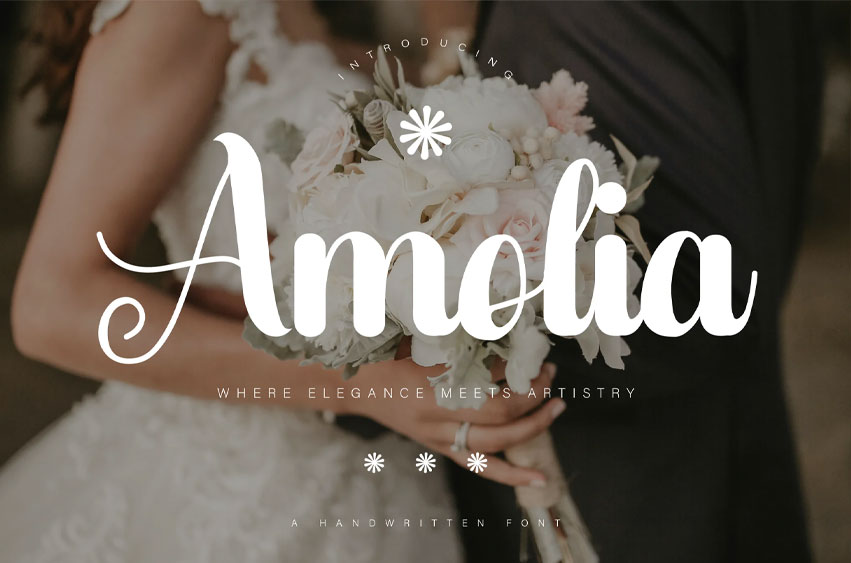
Amolia Font
Amolia Font is an exquisite script font designed to evoke elegance and sophistication. With its graceful curves and refined letterforms, it adds a touch of luxury to any design.
The fluid strokes and delicate transitions make it perfect for high-end branding, invitations, and stylish editorial projects.